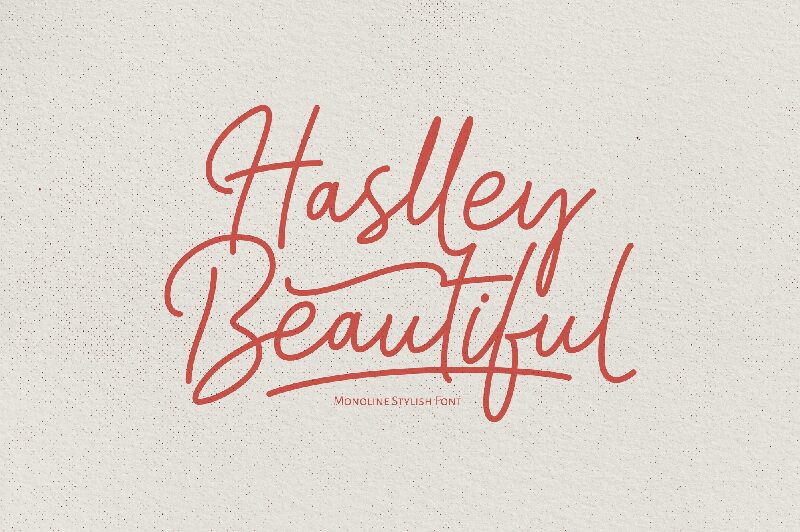
Haslley Beautiful Demo Version
Haslley Beautiful is a stunning handwritten font by Ivan Yahya, with an extra-light weight that exudes elegance and grace. Its fluid strokes and delicate curves make it the perfect choice for projects that require a touch of sophistication, such as wedding invitations, luxury branding, and high-end fashion editorials. This font adds a personal touch to any design project, bringing warmth and personality to your message. With Haslley Beautiful, you can create stunning designs that are both memorable and timeless. Make your next project stand out with this beautiful typeface from the Haslley font family.
Introducing a new font called Haslley Beautiful Monoline Stylish Font. Haslley Beautiful Monoline Stylish Font inspired by the beautiful curves of the world, this font has 686 types of glyphs that are able to give their own creations to designers because they have many variations of different types of letters.